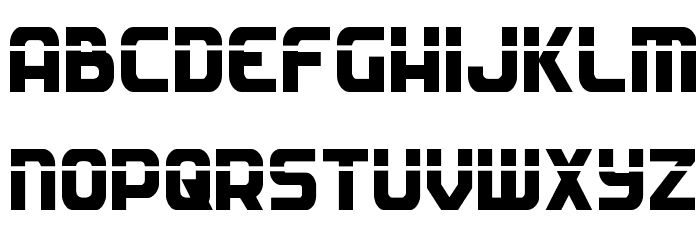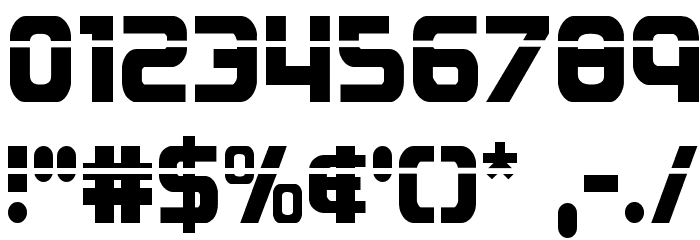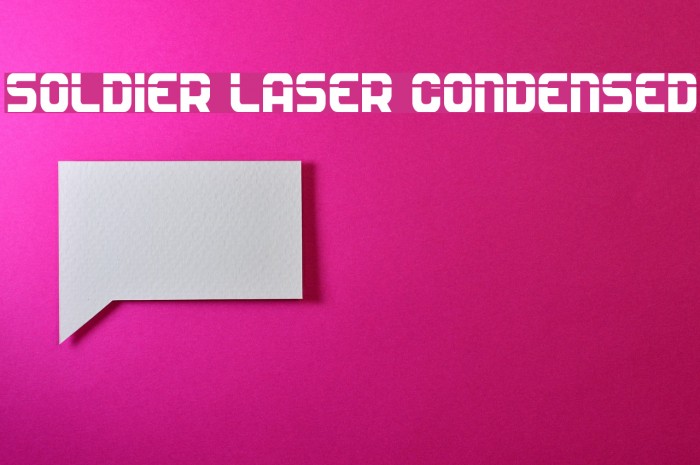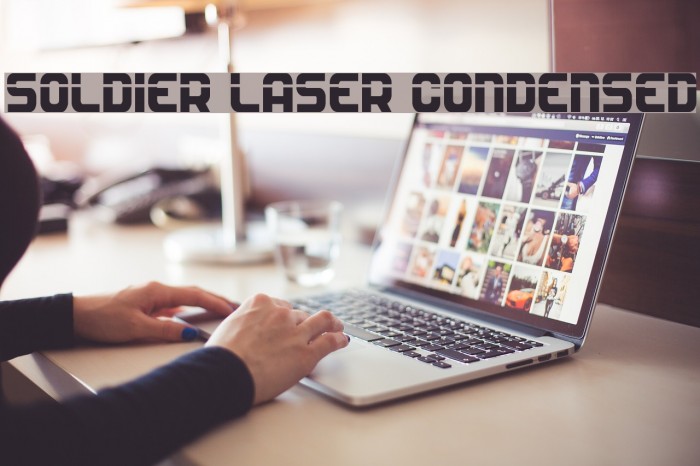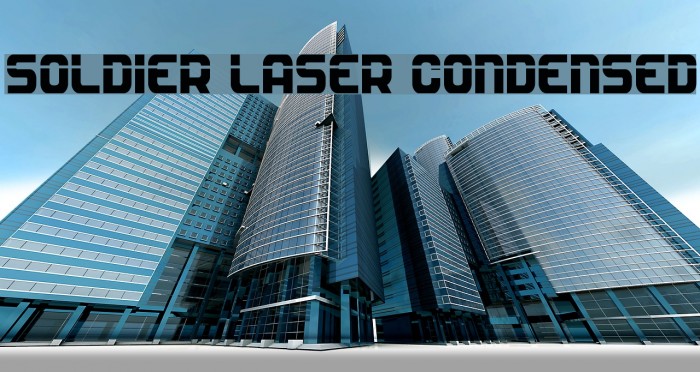
Soldier Laser Condensed Font
This font features a bold, futuristic design with a condensed structure, making it ideal for impactful headlines and modern design projects. The characters are constructed with a geometric precision, featuring sharp angles and clean lines that convey a sense of strength and innovation. The uppercase and lowercase letters maintain a consistent style, while the numerals and special characters complement the overall aesthetic. The font's condensed width allows for efficient use of space, making it suitable for both digital and print media where space is a premium.
A bold, futuristic, and condensed font with geometric precision.
- Proposed Projects: Ideal for technology branding, sci-fi posters, video game titles, and modern advertising.